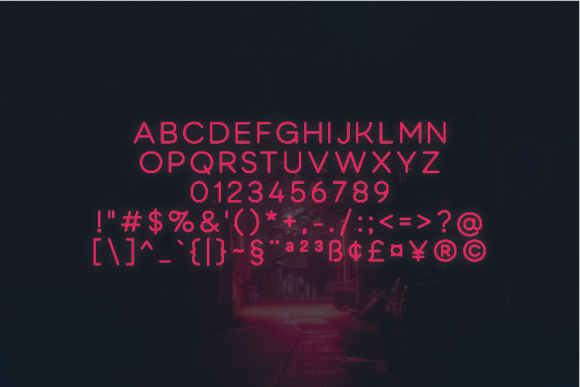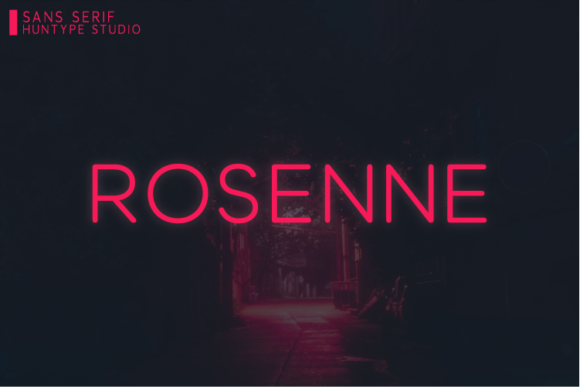
Introduction to Rosenne Font
Rosenne is a clean and modern font.
This sans serif font is perfectly adept for use as large scale headlines, mastheads and titles, but robust enough to perfectly communicate small runs of data, footnotes and more .
Key Features of Rosenne Font